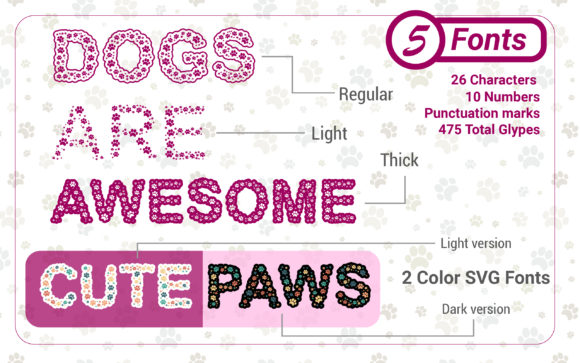
Dog Paws Font
Dog Paws is a cute and casual decorative font with an incredibly friendly feel. This font is the perfect fit for all of your logos, branding, social media, and crafty DIY projects.